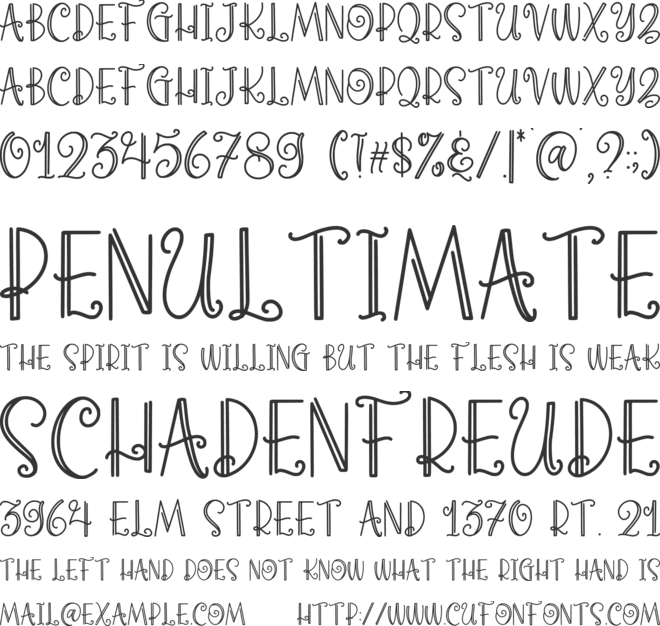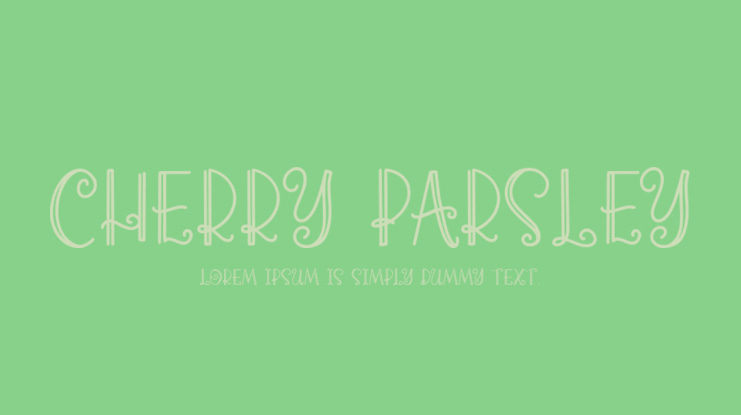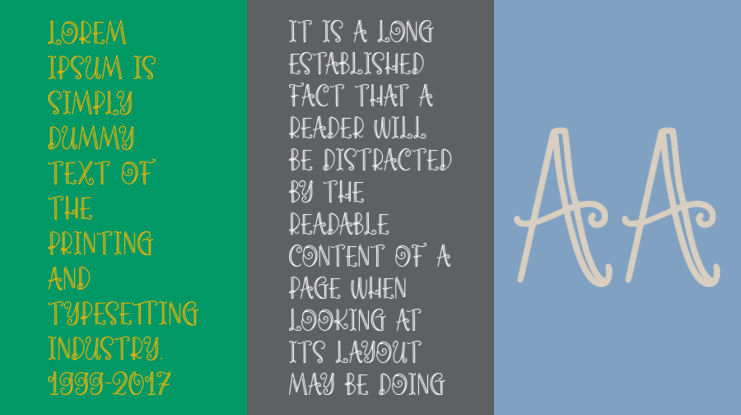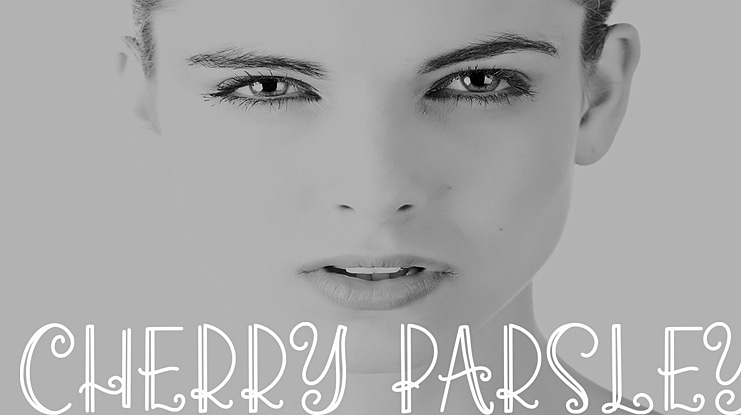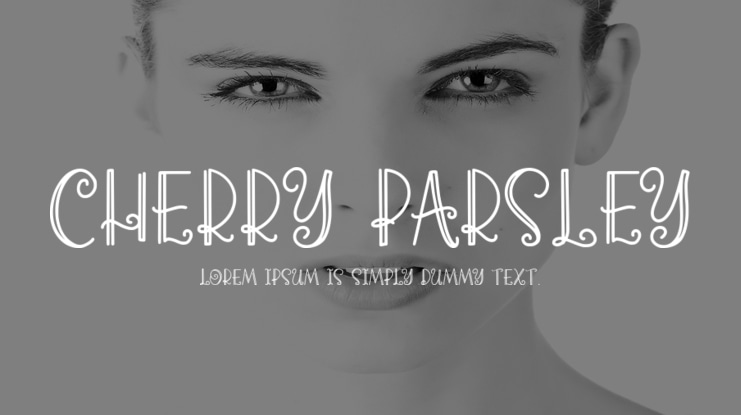
Cherry Parsley Font
CHERRY PARSLEY - swirly handwritten font -
It is great for quotes, card, banner, book, cutting, silhouette, social media content and anything of craft project. This font is all uppercase.